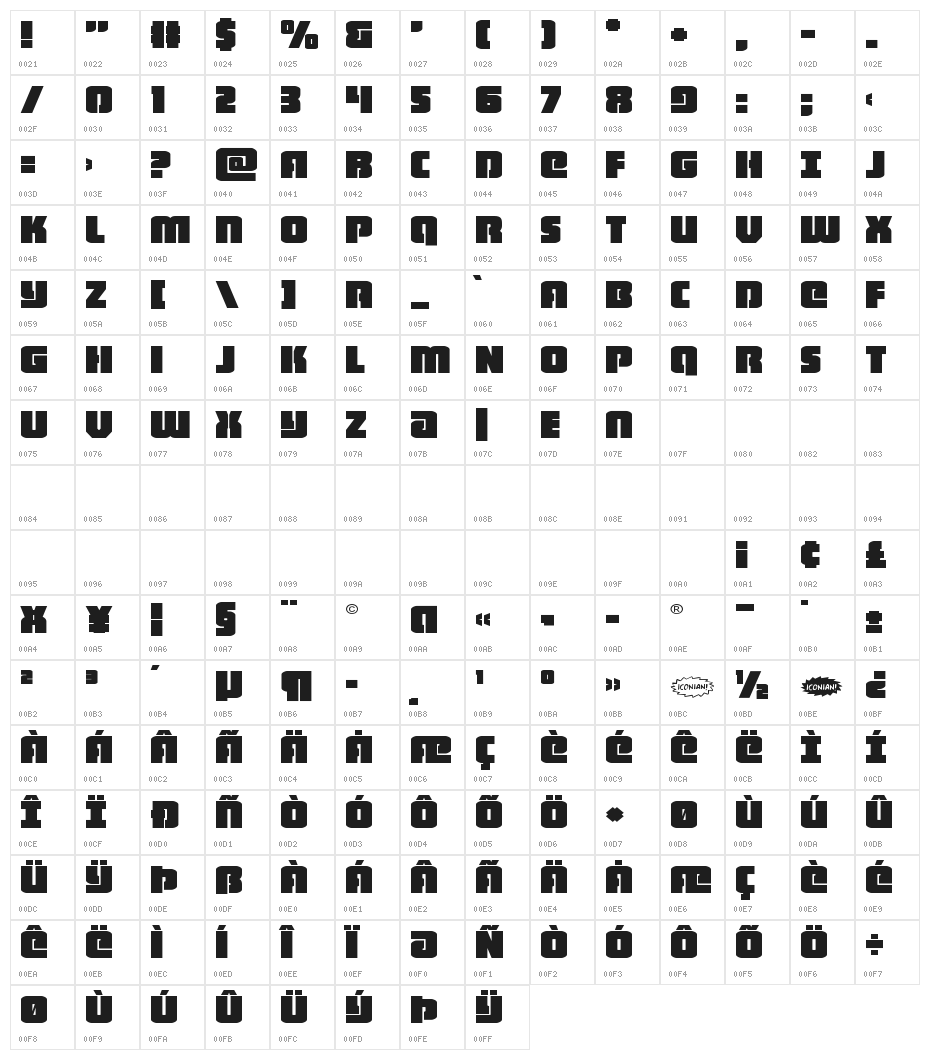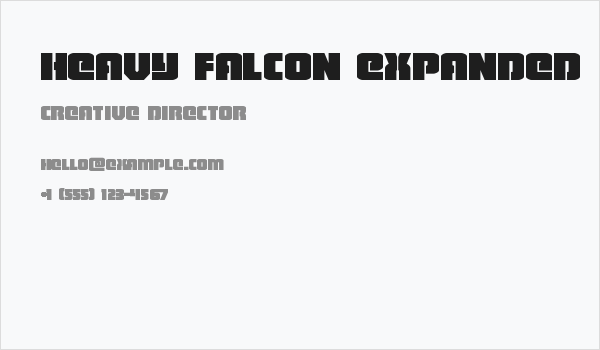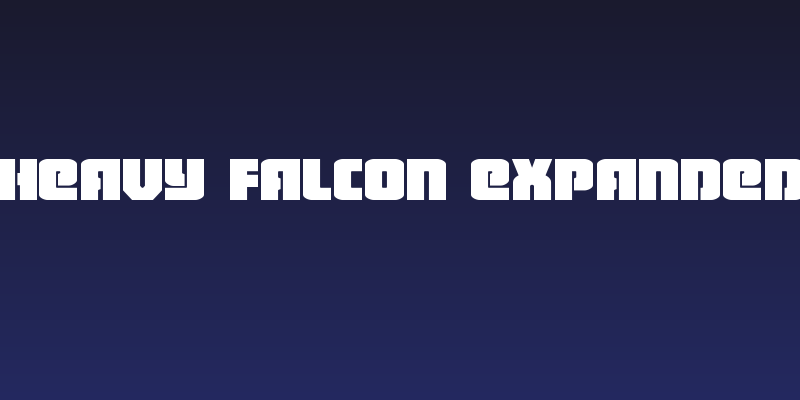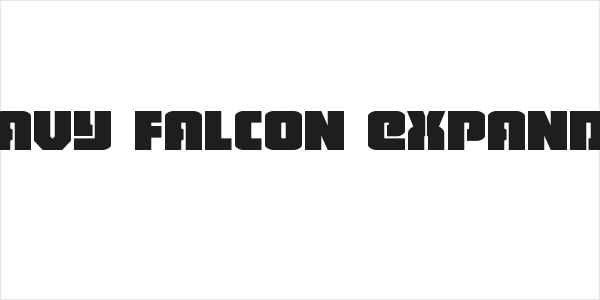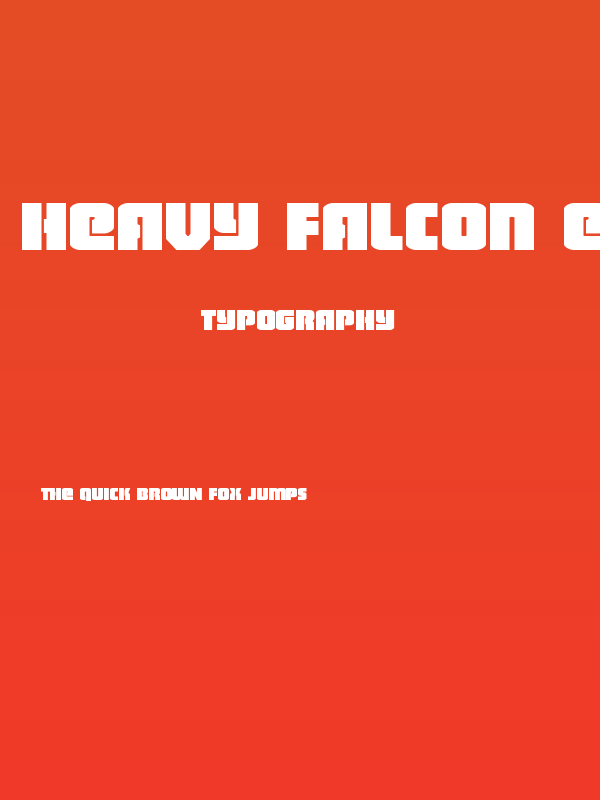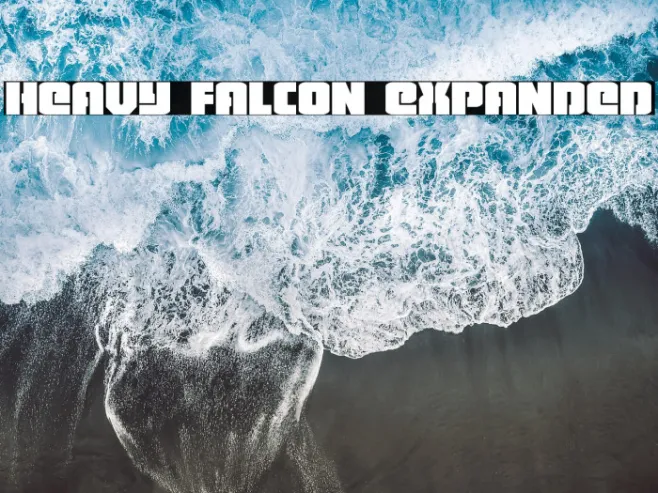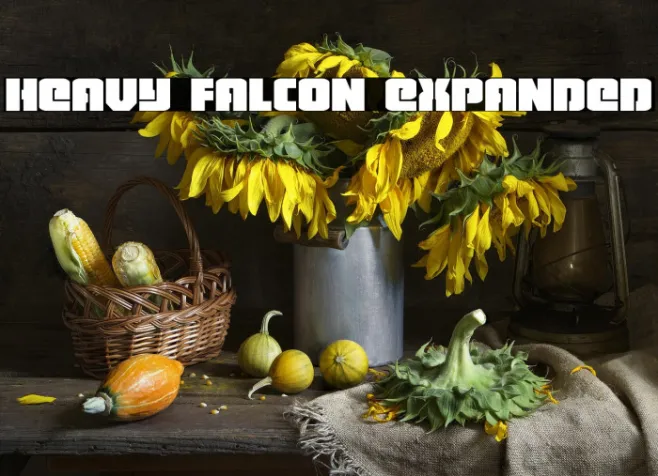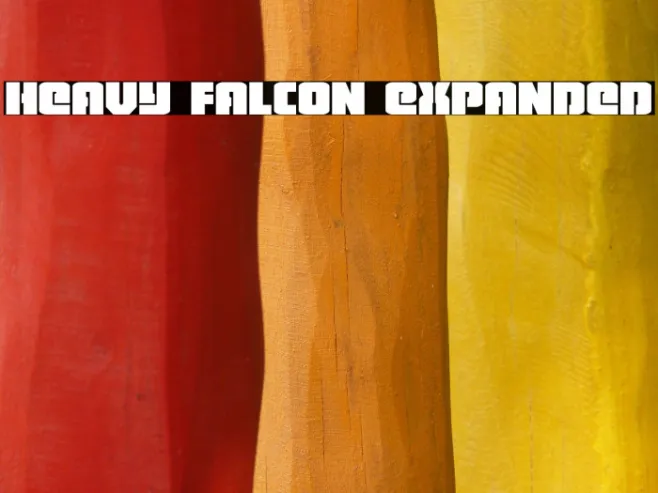
Heavy Falcon Expanded Font
Heavy Falcon Expanded Description
This font features a bold and robust design with a distinctly modern and industrial feel. The characters are heavily weighted, with thick strokes and minimal contrast, creating a powerful visual impact. The expanded width of the letters gives it a commanding presence, making it ideal for attention-grabbing headlines and titles. The geometric shapes and sharp angles contribute to its contemporary aesthetic, while the uniformity in character height and width ensures a cohesive look. The font's design is both functional and decorative, suitable for projects that require a strong and assertive typeface.
| Proposed Projects | Ideal for branding, posters, headlines, and signage where a strong visual impact is needed. |